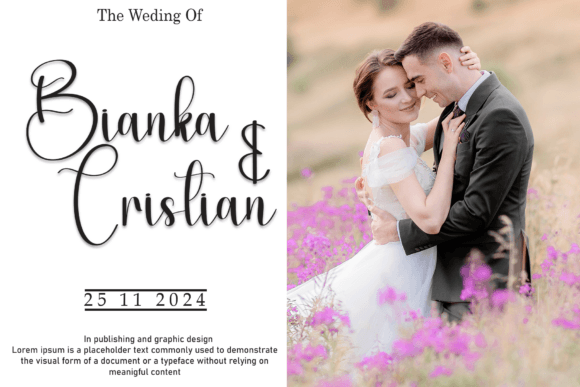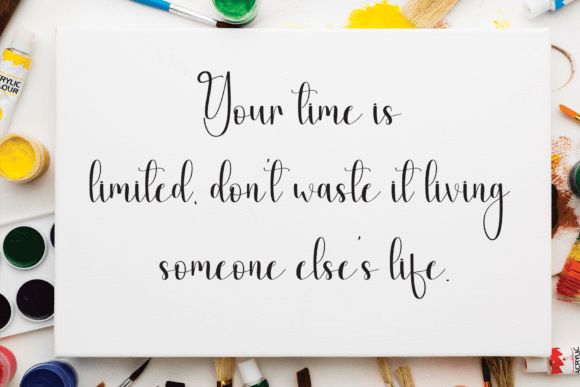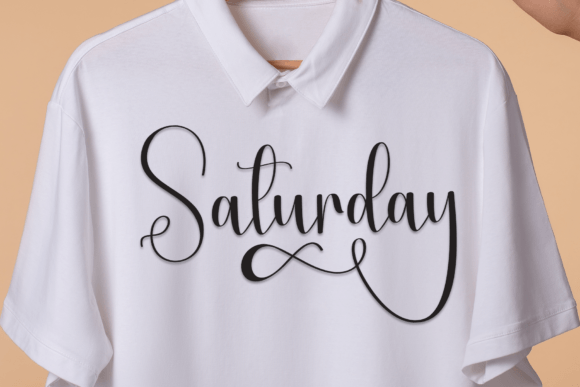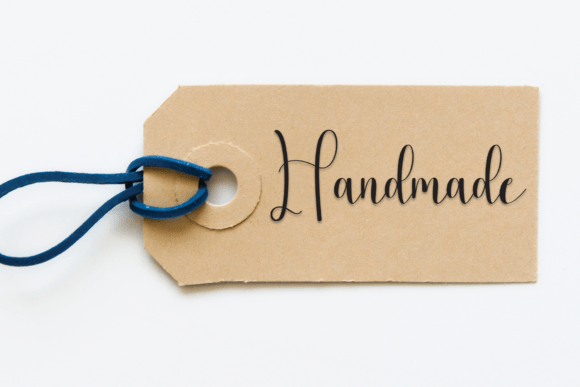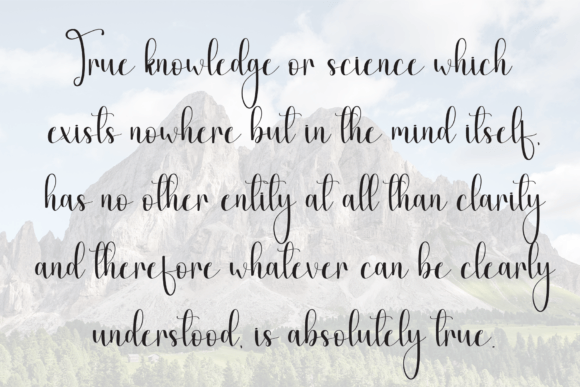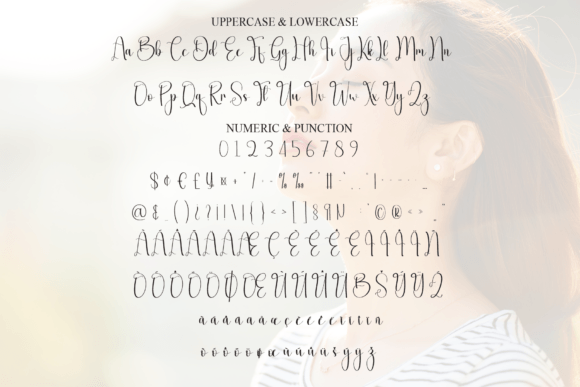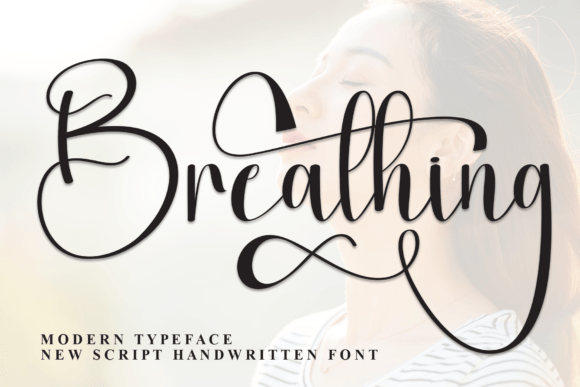
The Joy of Breathing Font: A Designer’s Delight
I’ll never forget the time I was working on a wedding invitation project, and my client asked for a font that was “fun, playful, and romantic.” I scoured the internet, tried out dozens of fonts, but nothing seemed quite right. That was until I stumbled upon Breathing Font. ✨ It’s a charming handwritten display font that exudes sweetness and friendliness, and it instantly brought a touch of joy to my design.
- ✨ The playful, cursive script is perfect for adding a flirtatious flair to wedding invitations, cards, and other designs.
- ✅ The font is highly legible, even at smaller sizes, making it versatile for various design applications.
- 💕 The unique character set and stylistic alternates allow for endless creative possibilities.
While Breathing Font is an amazing addition to any design project, there are a few things to keep in mind: 🤔
- ⚠️ The font may not be suitable for body text or long-form content, as it’s primarily designed for display purposes.
- ⚠️ Some characters, like the uppercase letters, can be a bit ornate, so it’s essential to use them judiciously.
The Designer Inspiration Behind Breathing Font
Breathing Font was created with the intention of capturing the carefree spirit of a summer breeze. The designer, inspired by the beauty of handwritten scripts, aimed to craft a font that would bring joy and playfulness to designs. 💨
Q: What is Breathing Font best suited for?
A: Breathing Font is ideal for display purposes, such as wedding invitations, cards, and other creative projects that require a playful, cursive script.
Q: Is Breathing Font available in different languages?
A: Breathing Font may not support all languages, but it does include a range of characters and glyphs to accommodate various design needs.